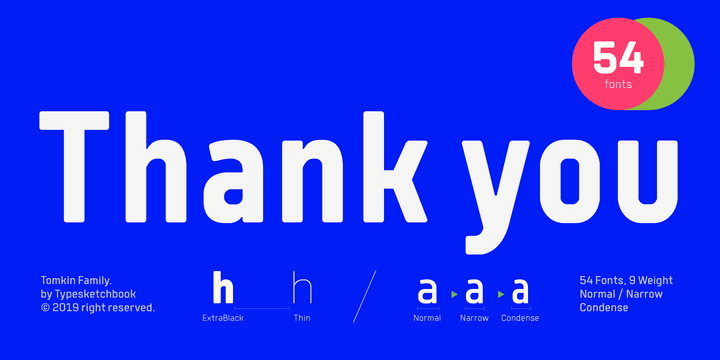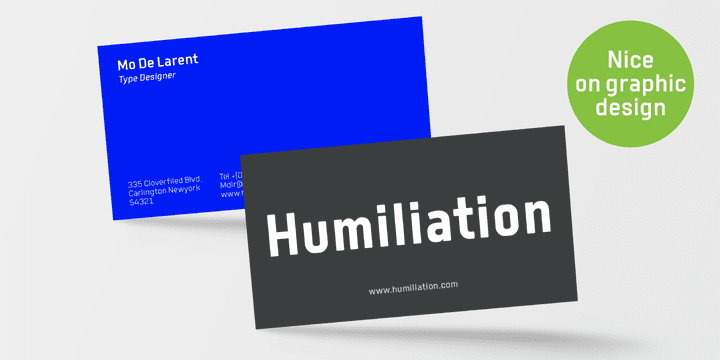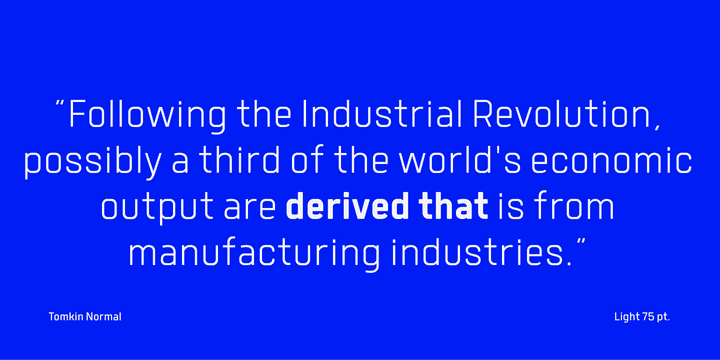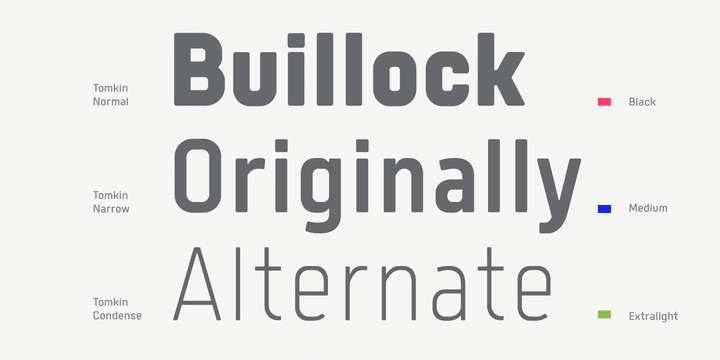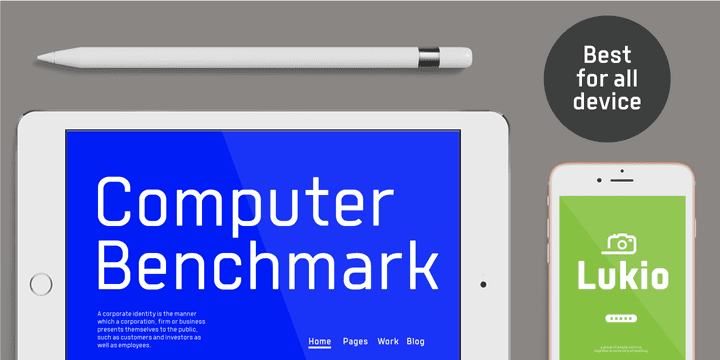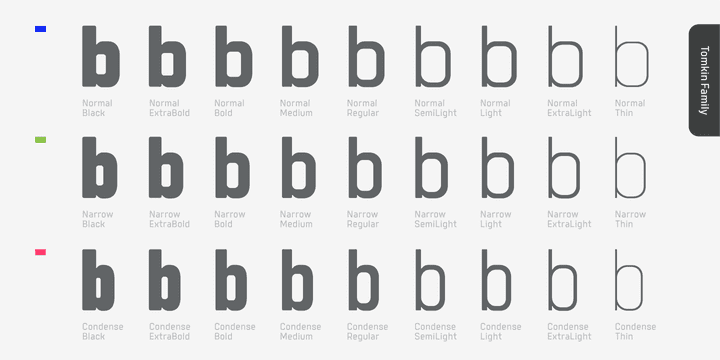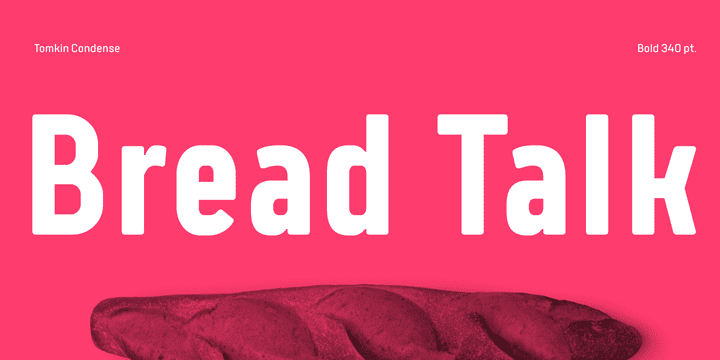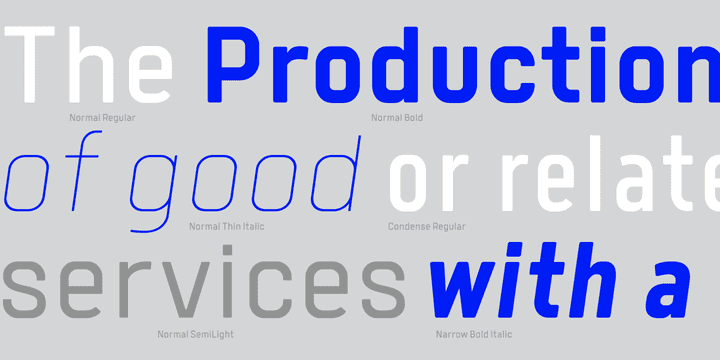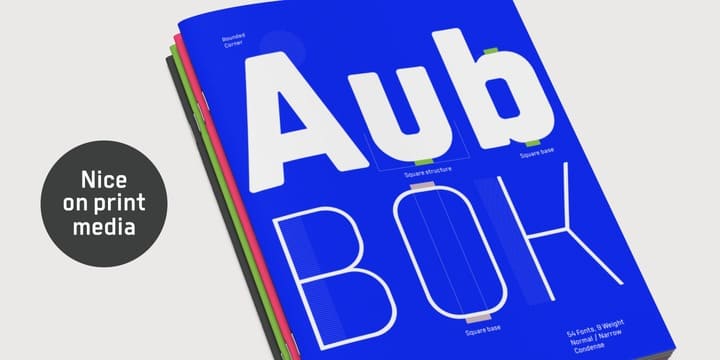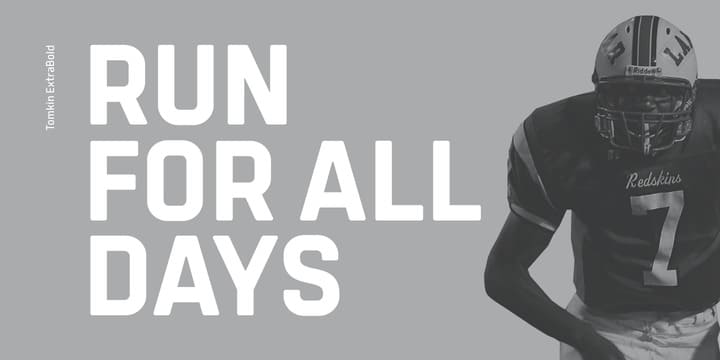
Tomkin Family (54 fonts)
From Typesketchbook
Tomkin is a usable, clean and modern sans typeface with a Semi-square structure. The complete Tomkin type family includes 9 weights with italics and 3 width (normal, narrow, condense) versions for each style.
This family offers a multifunctional usage for cooperative work, such as websites, magazines, editorial, publishing , as well as packaging.
About Typesketchbook
Located in the capital city of Thailand, Chatnarong Jingsuphatada started his type design career while working as a graphic designer. Throughout his career, whenever he was unable to find exactly what he needed for his own design projects, he began to create new typefaces rather than settle for ones that didn’t quite fit.
He experimented with different designs for 2 years before launching his Superstore Font Foundry, and then in 2012, began selling his typefaces commercially. Chatnarong made his debut with Gusto, a font that explores the intersection of san serif and humanist styles. Finding a strength in his ability to combine different styles of fonts into one, he went on to create Quan, which consists of a very usable, clean and modern sans typeface and a more rounded sub-family.
The Bangkok-based designer says, “Having worked as a graphic designer, I have gained insight into what designers want and need and what they look for in regard to how usable and interesting a font is. I try to create fonts that are multi-functional and attractive to suit today’s diverse fields of design. I draw inspiration from the creation and integration of different sets of fonts. This method offers me endless possibilities to design original typefaces that boast versatility and creativity.”